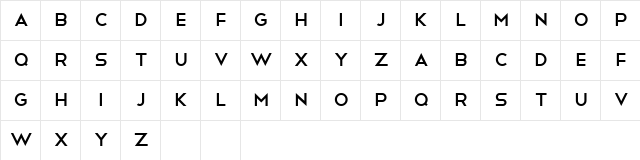
Telegrafico Regular
| Foundry | Salvo Nicolosi |
| Designer | Salvo Nicolosi |
Design Context for Telegrafico Typeface
Telegrafico is a composed and adaptable typeface that performs quietly and consistently across a wide range of design contexts.